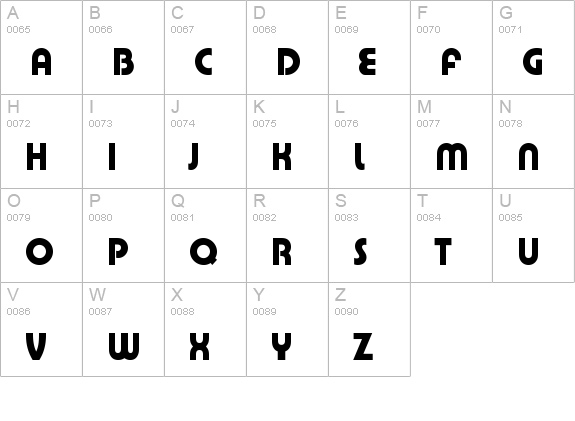
PumpEF-Demi is a sub-bold, structured variant in the PumpEF typeface family \xE2\x80\x94 well suited to sub-headlines and emphasised passages.
PumpEF-Demi font is a modern and versatile typeface that exudes confidence and sophistication. With its bold and powerful design, this font is perfect for making a statement in any project. The strong, clean lines and elegant curves of PumpEF-Demi make it suitable for a wide range of design applications, from branding to advertising to editorial design. What's even better is that PumpEF-Demi font is available for free download at FontsMarket.com. This means you can easily access this high-quality font and use it in your projects without any cost. Whether you are a designer, a business owner, or a student, PumpEF-Demi font offers a professional and stylish option for your typography needs. Download PumpEF-Demi font today and elevate your design projects with its bold and impactful presence.